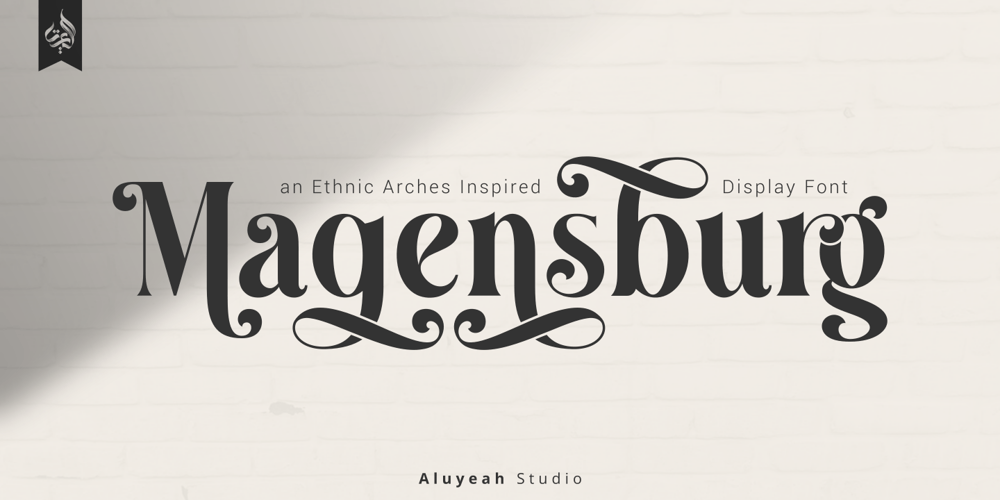
Al Magensburg
Al Magensburg font
Al Magensburg Font Family was designed by Linggar Sundoro and published by Aluyeah Studio. Al Magensburg contains 1 styles and family package options. Hallo alle! Magensburg is an ethnic arches inspired display font. This font was carefully crafted and inspired ethnic arches in the world. In general, it creates a luxurious and mysterious look in design.Coming to you with 160+ stunning alternate to create a perfectly mystical, beautiful, classy, elegant design. Use this font for your fashion brand, resort, cosmetics, invitations, wedding, branding, packaging, magazines, boutique, social media, restaurant, spa, greeting cards, headers, headline and many more.Features:OpenType supportMultilingual support (15 languages)PUA EncodedSuper Easy to Use alternates – It’s OpenType support but you can easly call alternates character using special combination like A.2 R.4 h.8 etc so you dont need special software. To get results like the preview just type M.8ag.3en.3sb.6urgThanks for checking out my font. I really hope you enjoy using it!If you have any questions I’d be more than happy to answer them, just send me a message!